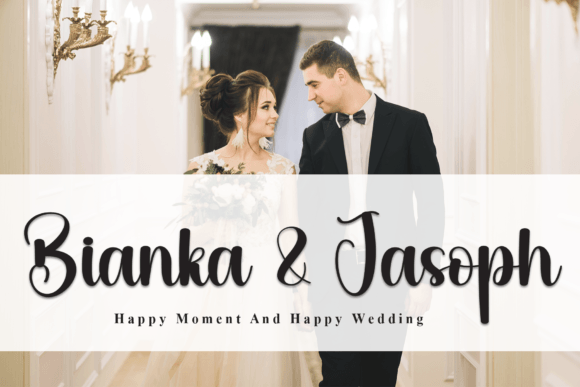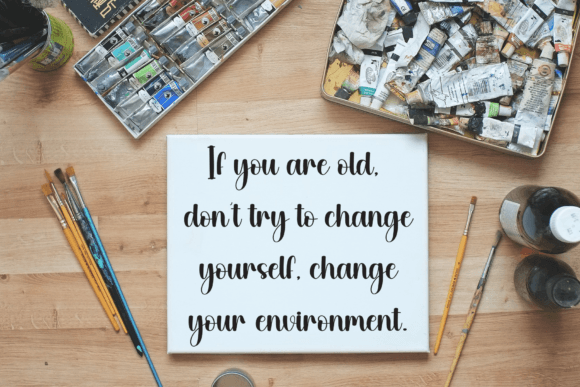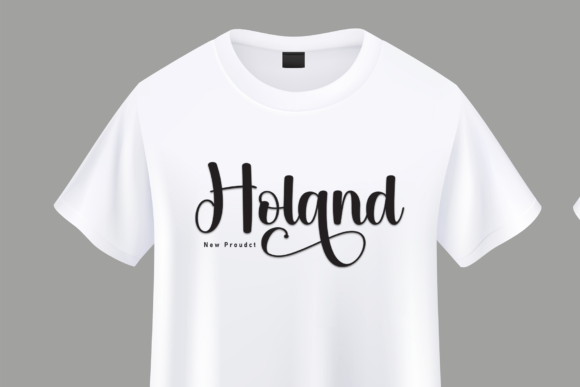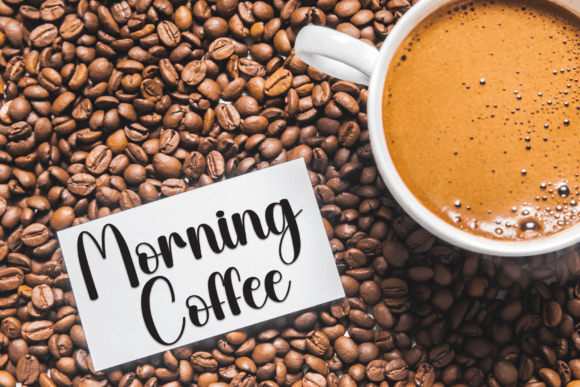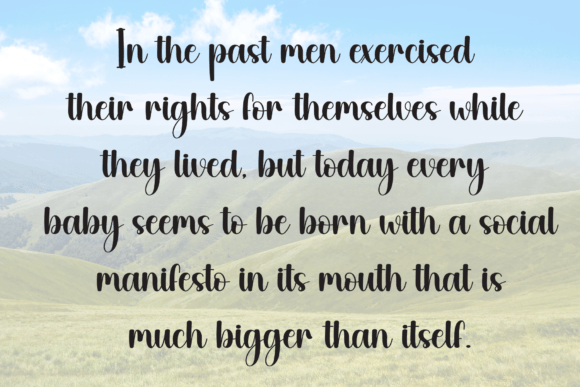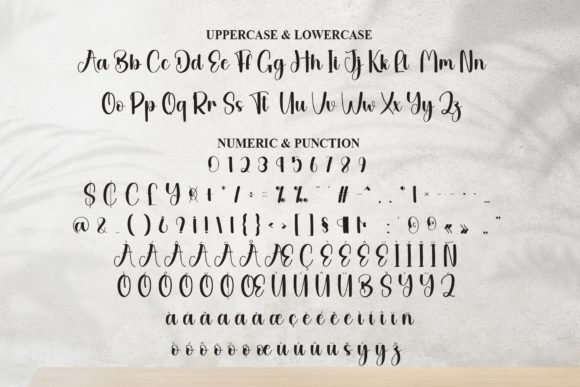
Introducing Alphabet Font: Elevate Your Design with Elegance
Are you tired of using the same old fonts in your designs? Look no further than Alphabet, a chic handwritten font that adds a touch of sophistication to any project. With its stylish curves and unique design, Alphabet is the perfect choice for designers and crafters looking to elevate their work.
What is Alphabet Font?
Alphabet is a modern handwritten font that is both elegant and versatile. Its unique design features flowing curves and subtle imperfections, giving it a personal and human touch. Whether you’re working on a branding project, a craft, or a digital design, Alphabet is the perfect choice to add a touch of class and sophistication.
Key Features of Alphabet Font
- Unique Design: Alphabet’s design is unlike any other font out there. Its flowing curves and subtle imperfections give it a personal and human touch.
- Elegant and Versatile: Alphabet is perfect for a wide range of projects, from branding and advertising to crafting and digital design.
- Easy to Read: Despite its elegant design, Alphabet is easy to read, making it perfect for body text and headlines.
- High-Quality: Alphabet is a high-quality font that is designed to look great in any size or resolution.
Uses of Alphabet Font
Alphabet is a versatile font that can be used in a wide range of projects, including:
- Branding and Advertising: Use Alphabet to create elegant and sophisticated branding materials, such as logos, business cards, and brochures.
- Crafting: Alphabet is perfect for crafters who want to add a touch of elegance to their projects, such as handmade cards, scrapbooking, and DIY crafts.
- Digital Design: Use Alphabet in digital designs, such as website headers, social media graphics, and email newsletters.
- Graphic Design: Alphabet is a great choice for graphic designers who want to add a touch of elegance to their designs, such as posters, flyers, and magazine layouts.
Tips for Using Alphabet Font
Here are a few tips for using Alphabet in your designs:
- Use it sparingly: Alphabet is a elegant font, so use it sparingly to add emphasis to your design.
- Pair it with other fonts: Alphabet pairs well with other fonts, such as sans-serif fonts, to create a unique and interesting design.
- Experiment with sizes: Alphabet looks great in a variety of sizes, so experiment with different sizes to find the one that works best for your design.
Alphabet is a chic handwritten font that adds a touch of elegance to any project. With its unique design, elegant curves, and versatility, Alphabet is the perfect choice for designers and crafters looking to elevate their work. Whether you’re working on a branding project, a craft, or a digital design, Alphabet is the perfect choice to add a touch of class and sophistication.